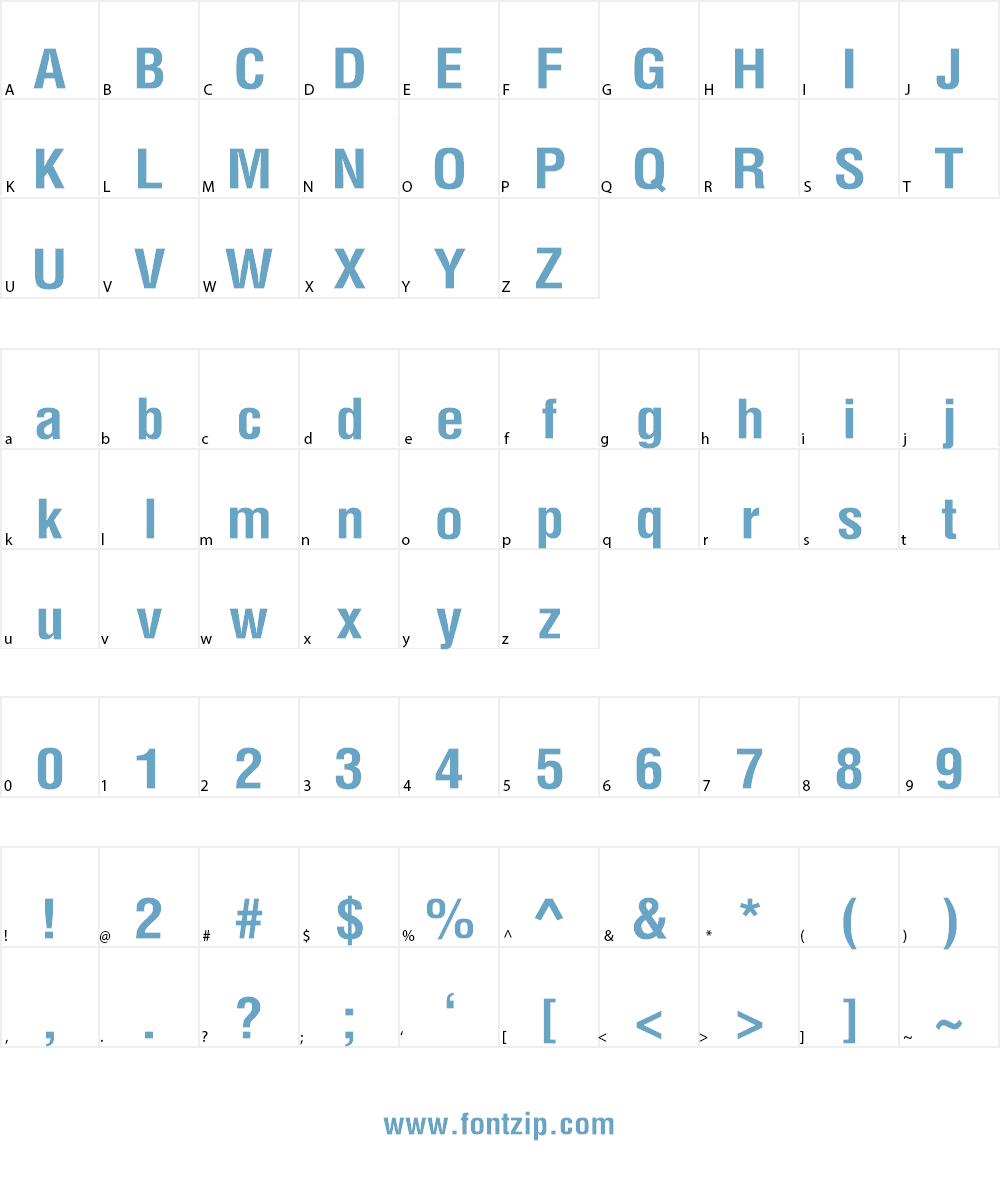
Ayar Unicode fonts are produced in major Myanmar ethnic languages derived from Brahmi script and in various typefaces. Ayar Unicode group is currently developing other Unicode fonts for the rest of the ethnic languages that have their origin in Brahmi script.